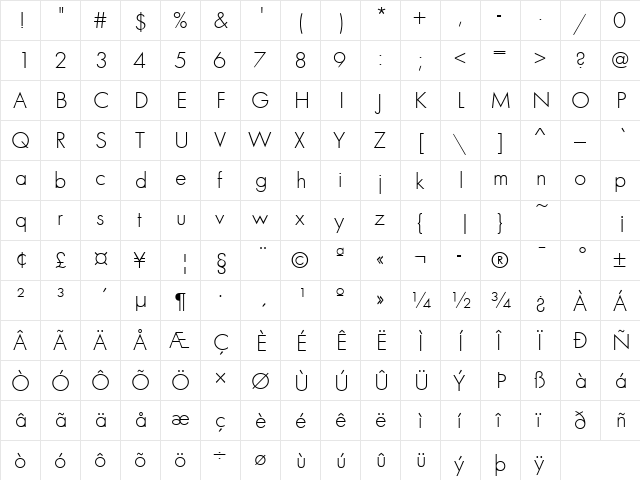
Fuschia Light Regular
Design Context for Fuschia Light Typeface
Fuschia Light offers clean, dependable letterforms without strong stylistic allegiance, making it a practical choice for designers who need flexibility. The delicate stroke weight brings airiness and refinement to layouts.